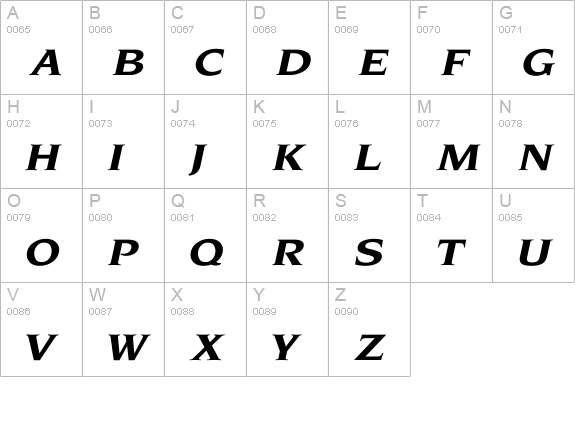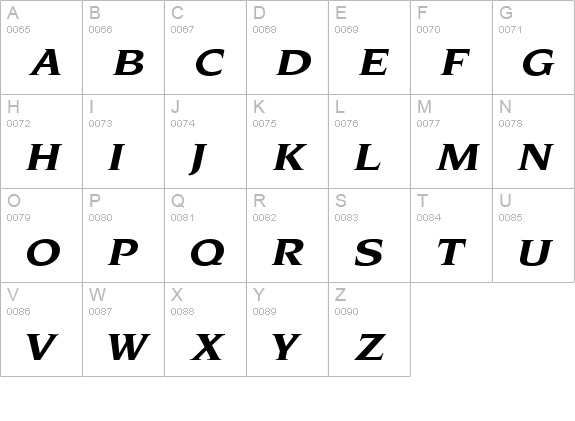
Neuvarese-BoldItalic Wd Font Details
The Neuvarese-BoldItalic Wd font is a bold and stylish typeface that exudes elegance and sophistication. Its sleek italicized design adds a touch of modernity to any project, making it perfect for a wide range of creative applications. The font features clean lines and sharp angles, giving it a contemporary and dynamic look that is sure to make a statement. What sets the Neuvarese-BoldItalic Wd font apart is not only its striking appearance but also its versatility. Whether you're designing a logo, creating a poster, or crafting a website, this font will elevate your work and capture attention with its bold presence. Best of all, the Neuvarese-BoldItalic Wd font is available for free download at FontsMarket.com. This means you can easily access and use this stunning typeface in your projects without any cost. Don't miss out on the opportunity to add a touch of sophistication to your designs with the Neuvarese-BoldItalic Wd font – download it today and see the difference it can make!